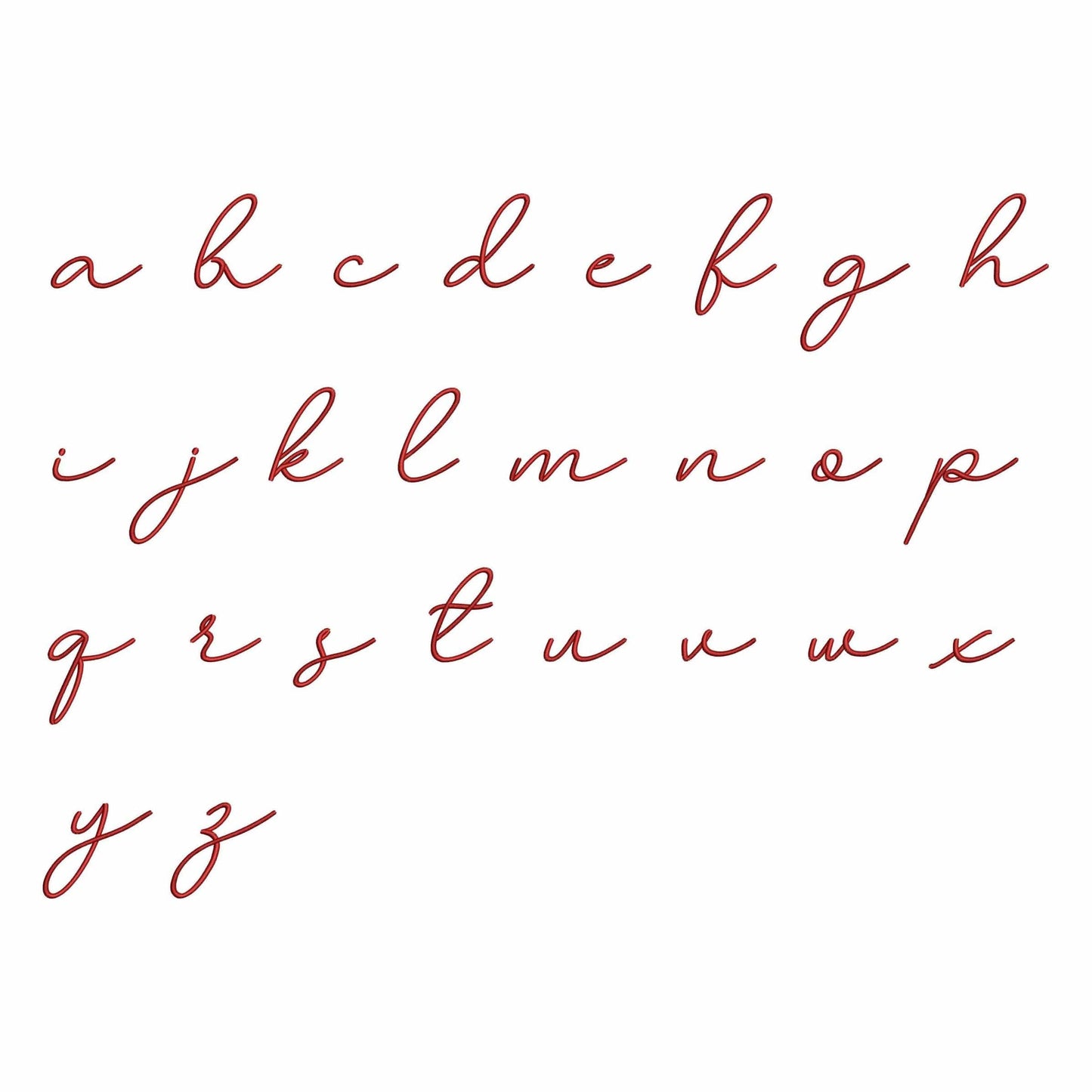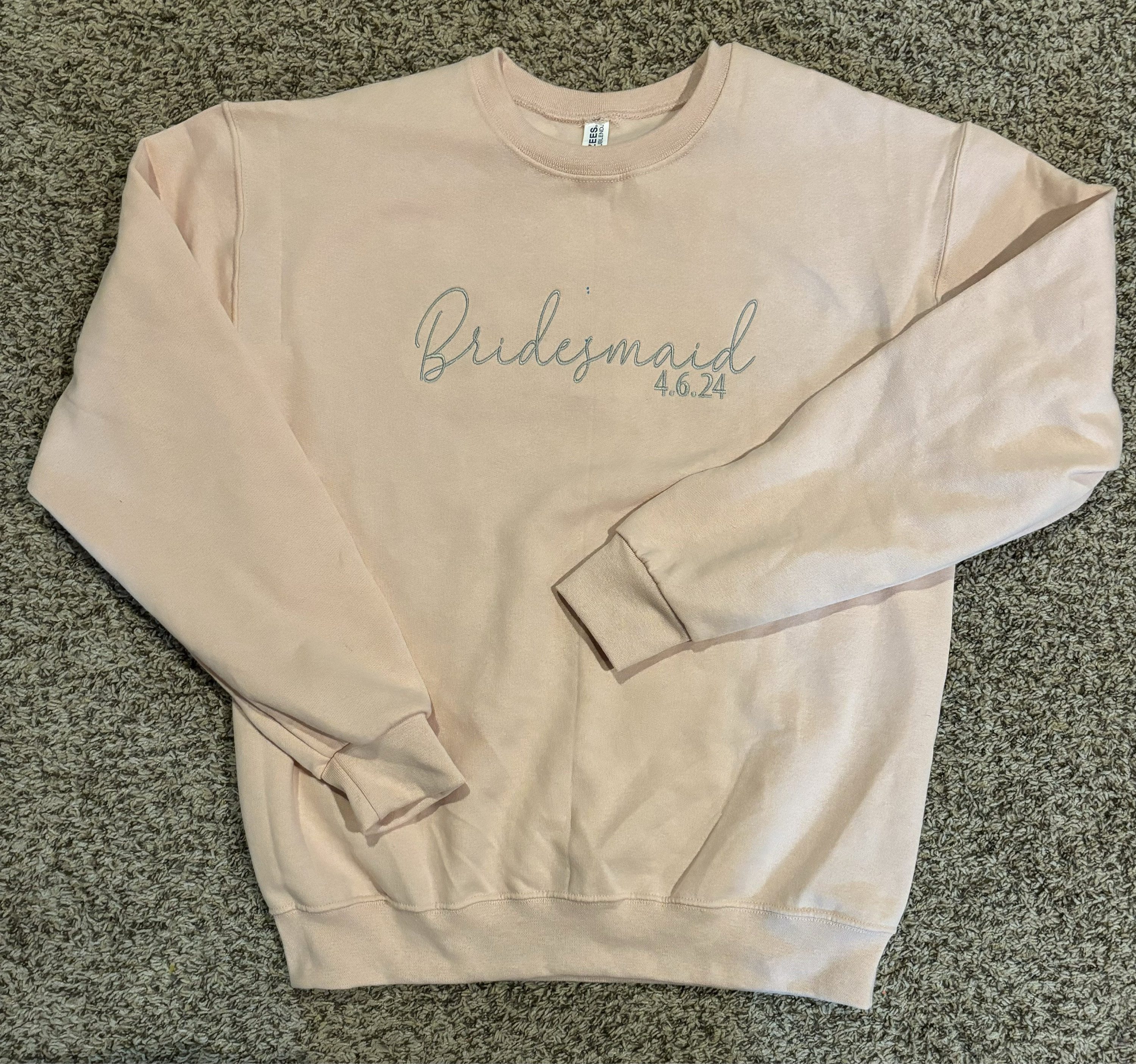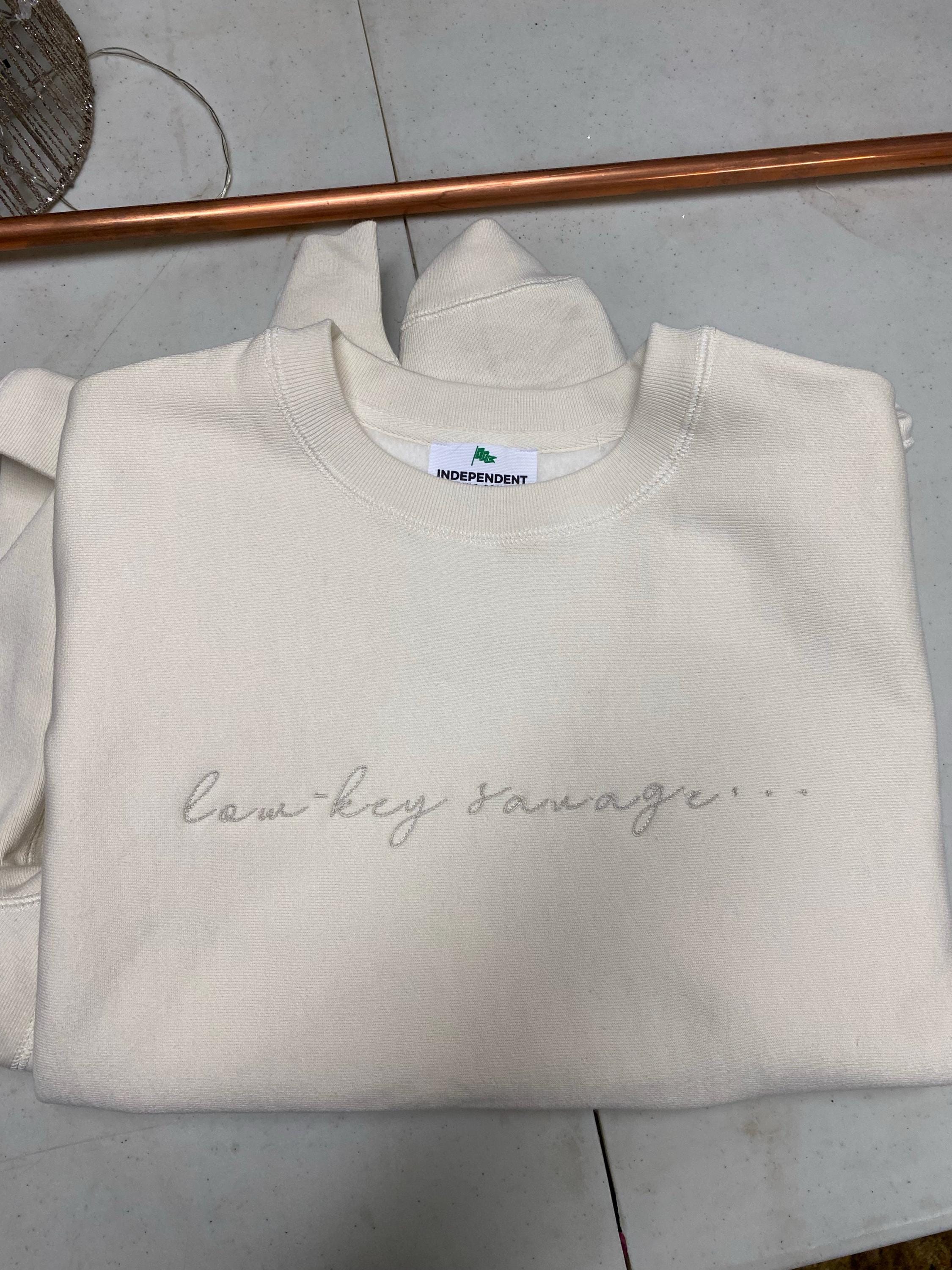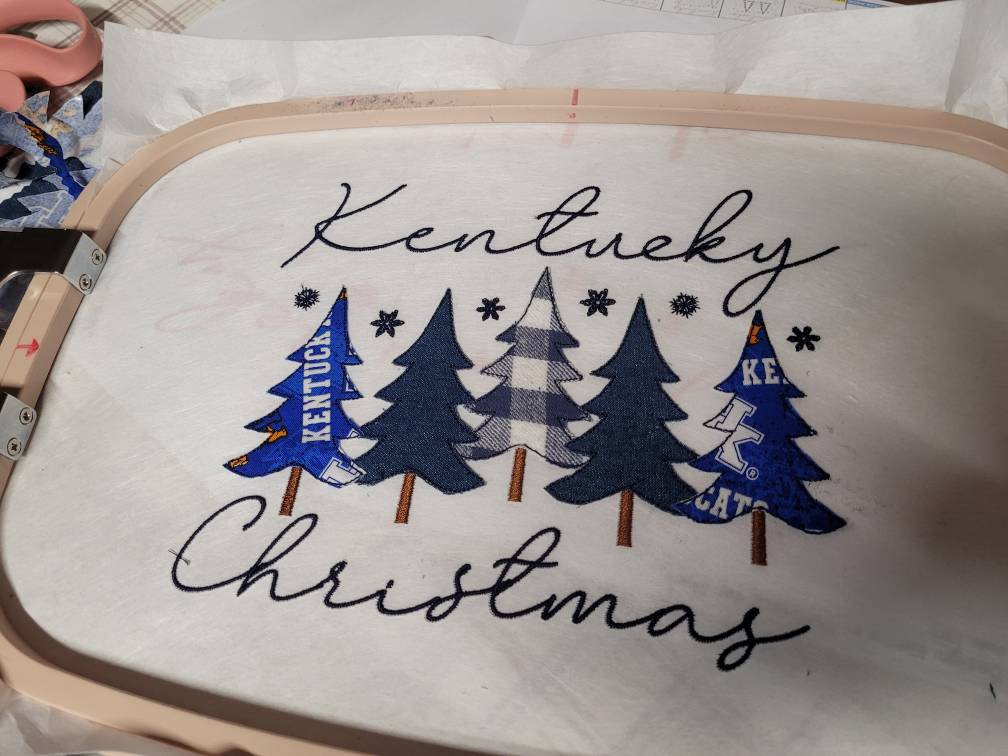
Hailey - Embroidery font
This machine embroidery font works well for monograms, boutique shirts, towels, keepsakes, and feminine custom gifts.
A strong choice for makers who want thin cursive lettering with a polished stitched look for elegant personalized embroidery.